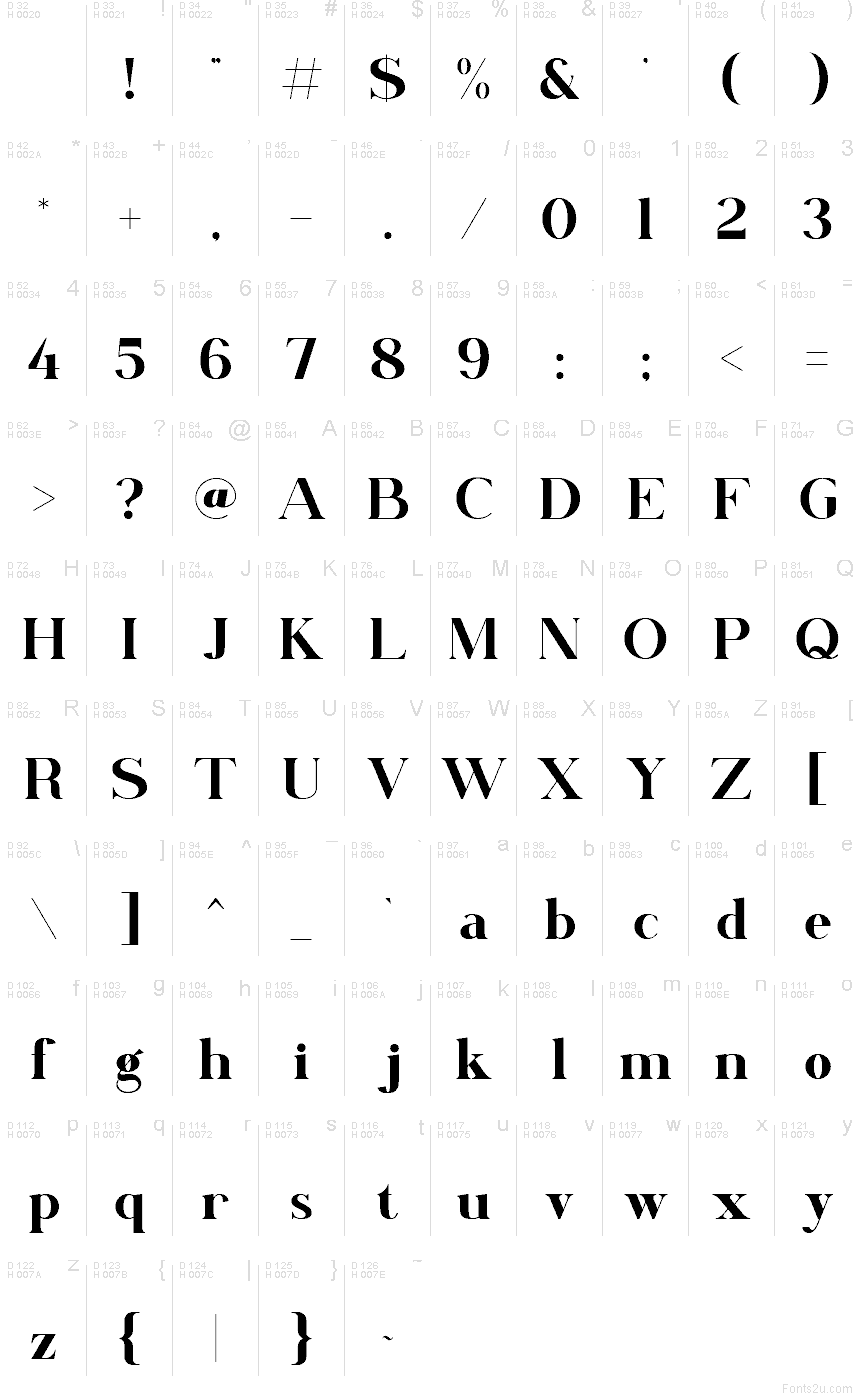
Anliba
Anliba font by ErmediaStudio is a free serif font with a bold, theatrical presence. The letters feel carved rather than drawn: heavy verticals drop like ink columns, while fine hairlines and crisp wedge-shaped serifs slice through the white space. Wide, rounded bowls soften the sharpness, giving Anliba a lush, editorial elegance that still feels modern and punchy instead of fussy.
This free font shines on magazine covers, fashion branding, packaging, book jackets, posters, and bold logotypes where you want a sense of drama at a glance. Using Anliba at larger sizes lets those sculpted curves and razor edges really breathe; pair it with a simple geometric sans for smaller text to keep layouts clean.